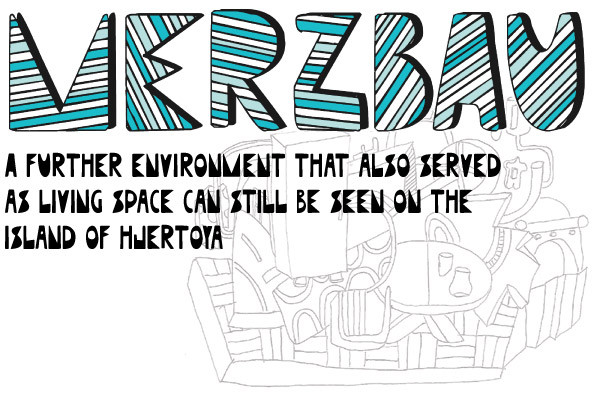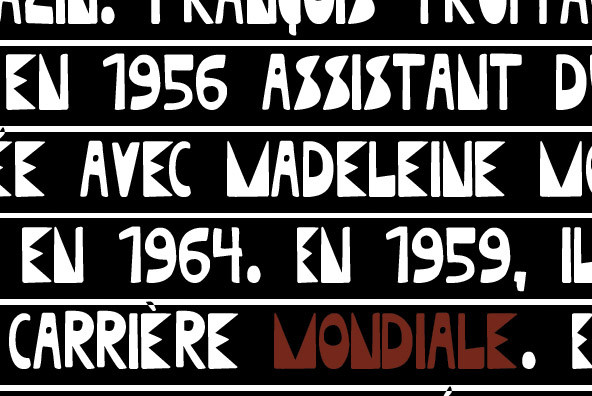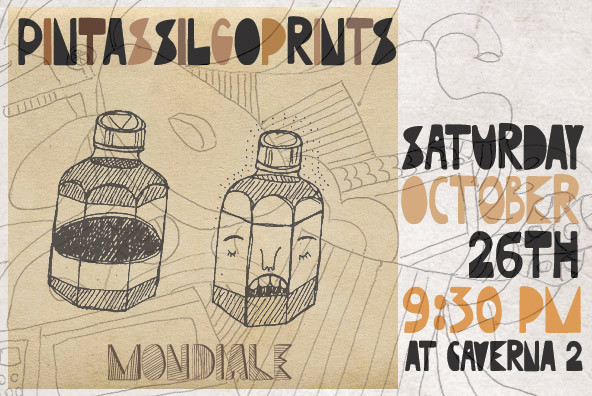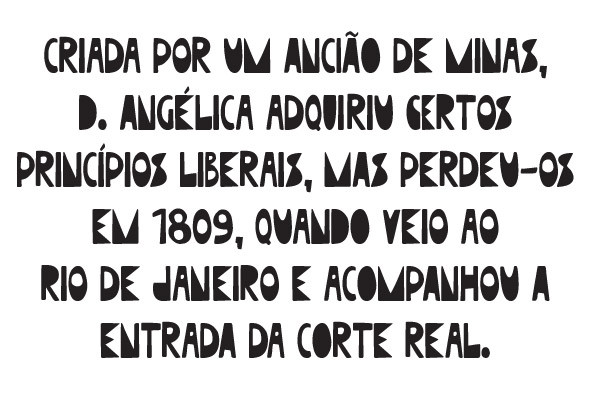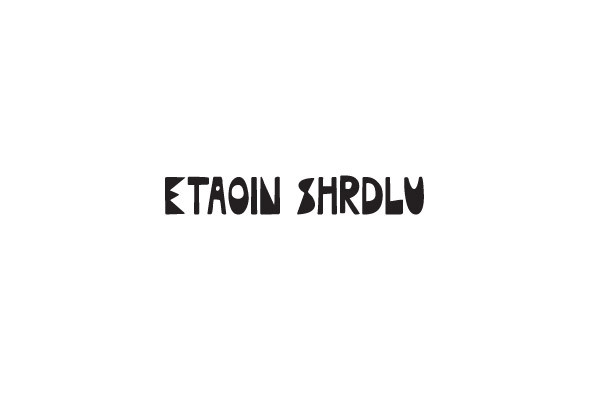
Mondiale
Mondiale is an unicase font with a tasty hand drawn feel. It contains only uppercase letters, but uses lowercases characters as alternates, providing flexibility for your designs.